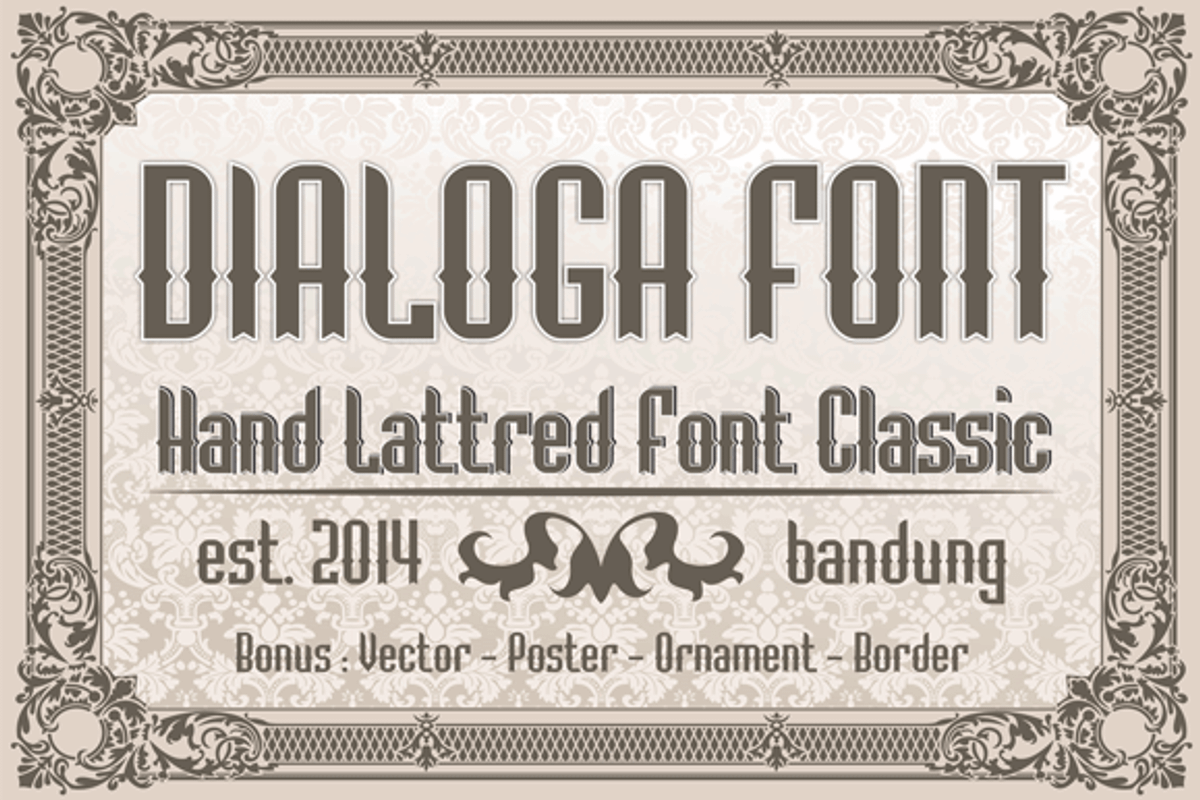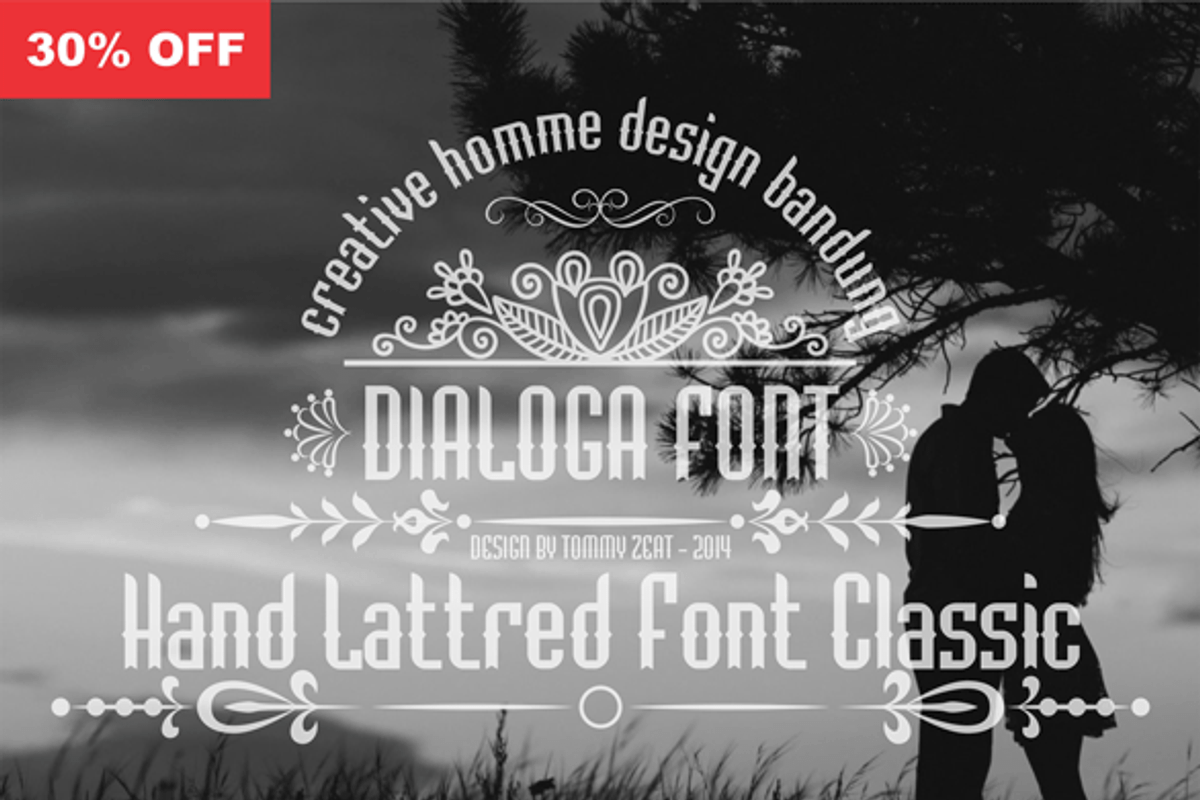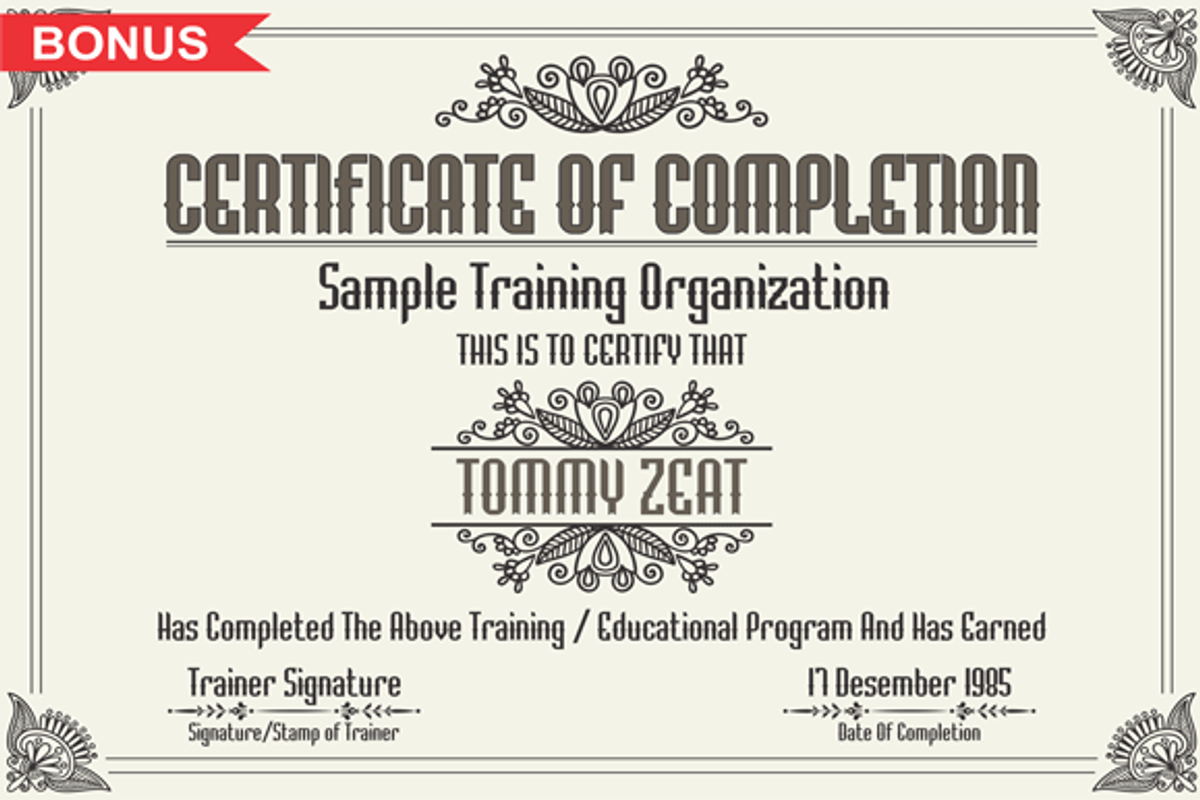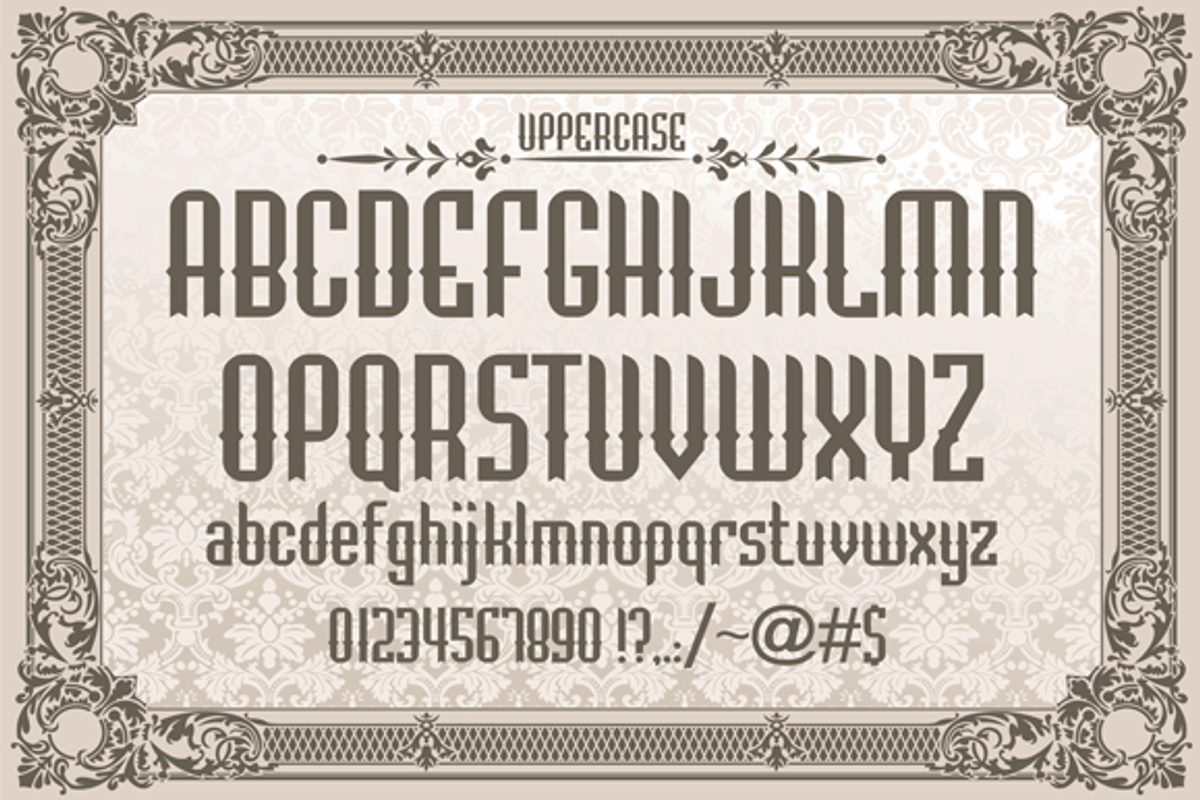
Dialoga Font
Dialoga Font by Roams Type is a font selected for branding, posters, packaging, typography.
Why Dialoga Font is worth a look
Dialoga Font by Roams Type fits naturally into Branding, posters, packaging, typography.